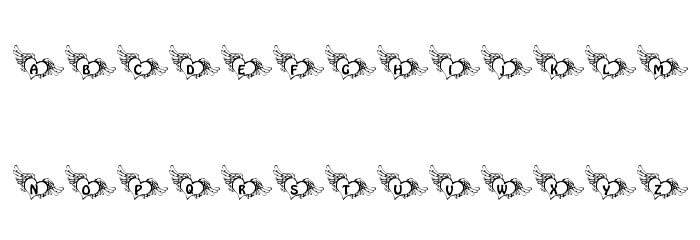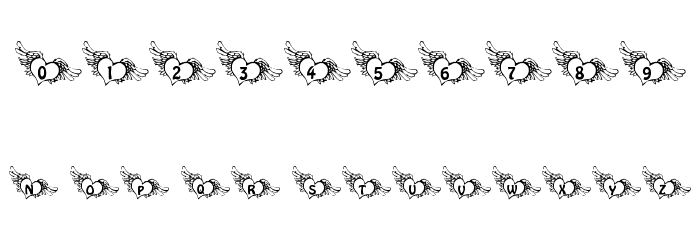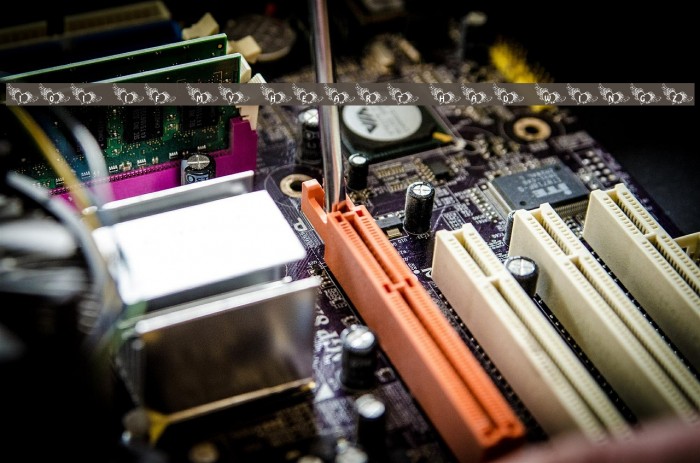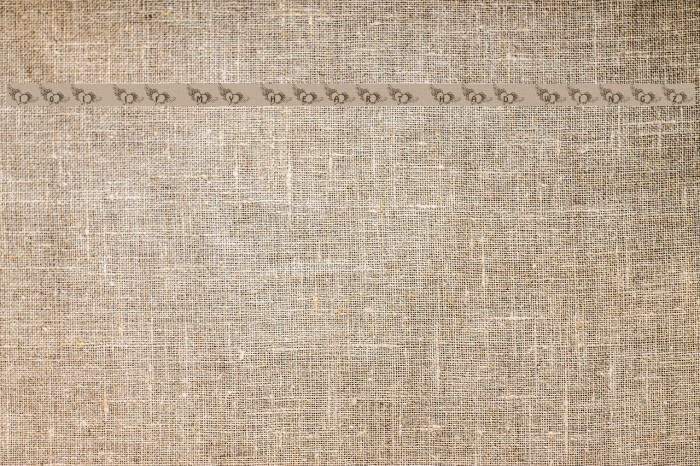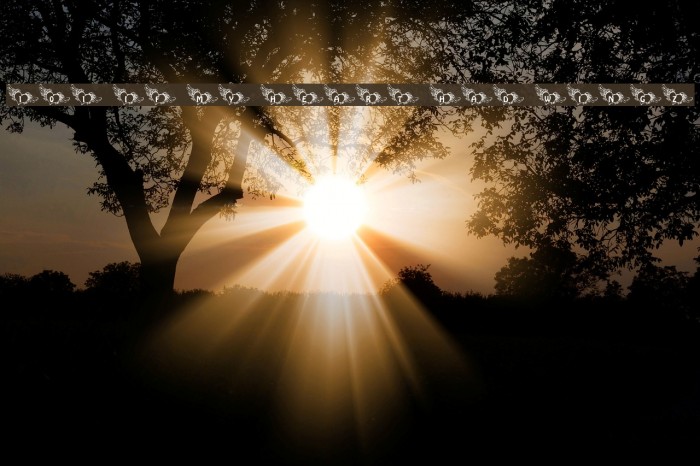
101! If My Heart Had WingZ Font
This decorative font features each character enclosed within a heart shape, adorned with wings on either side, creating a whimsical and romantic appearance. The letters are bold and clear, ensuring readability despite the intricate design. The font includes both uppercase and lowercase letters, numbers, and a selection of special characters, all maintaining the heart and wings motif. This unique style is perfect for projects that require a touch of elegance and fantasy, such as wedding invitations, greeting cards, or themed event posters.
A decorative font with characters inside heart shapes with wings.
- Proposed Projects: Ideal for wedding invitations, romantic greeting cards, fantasy-themed event posters, and decorative crafts.
- Use Case: Headlines, Logos, Decorative Text